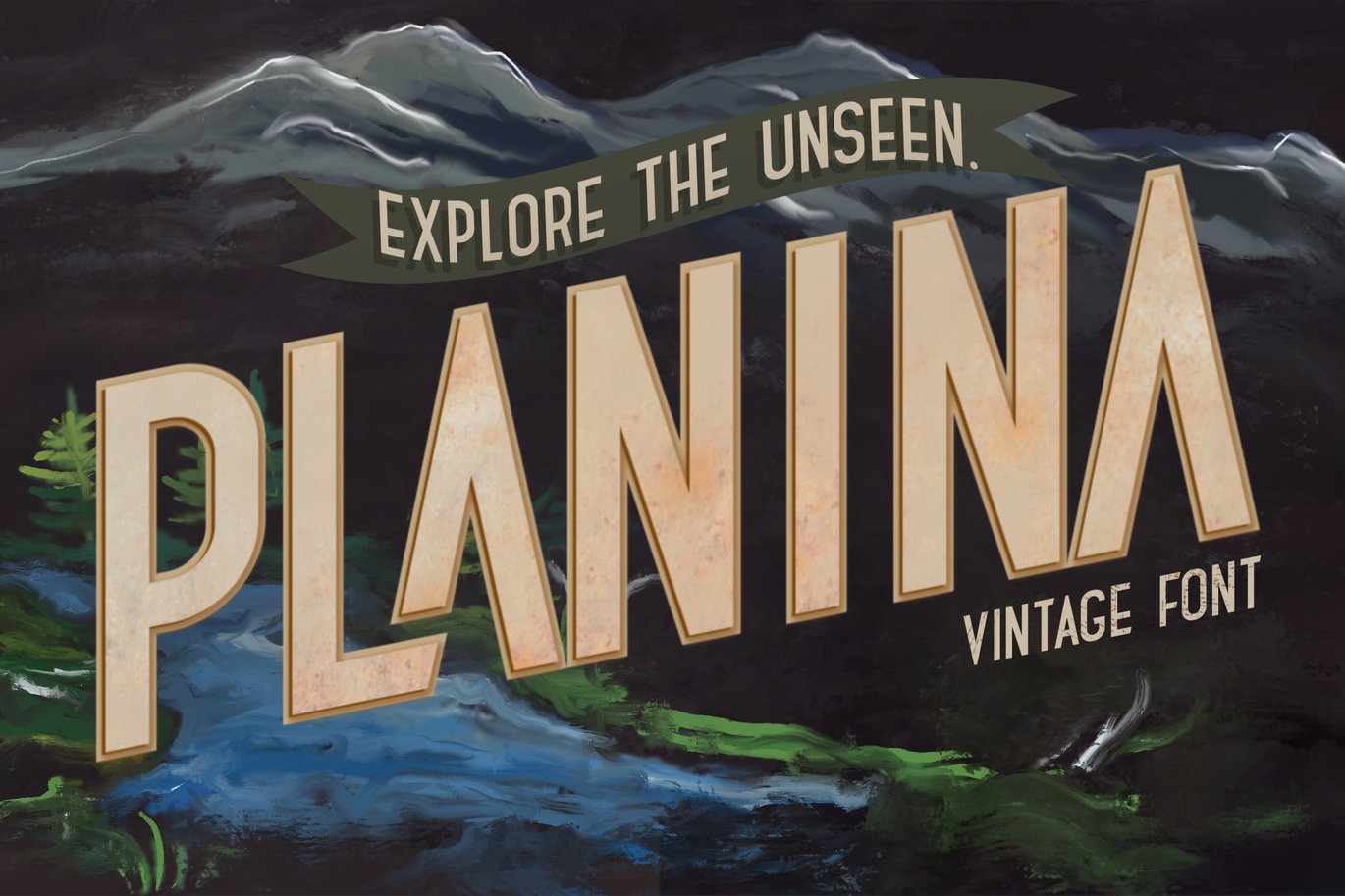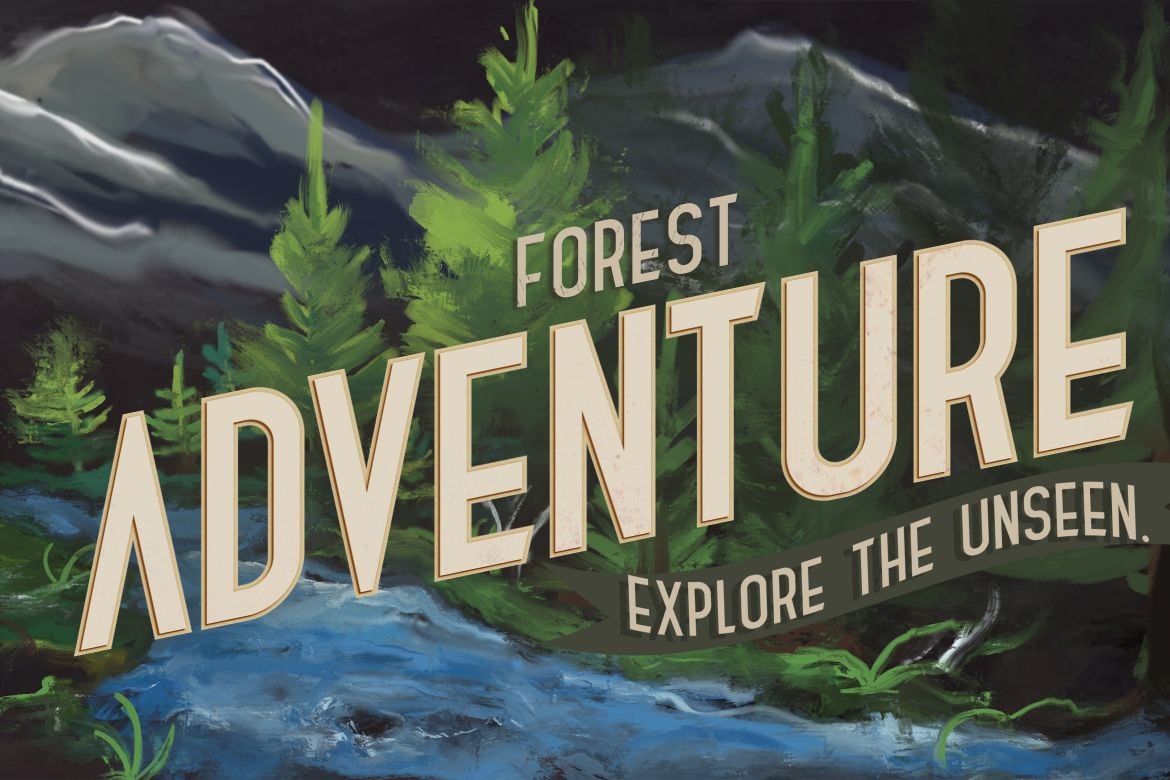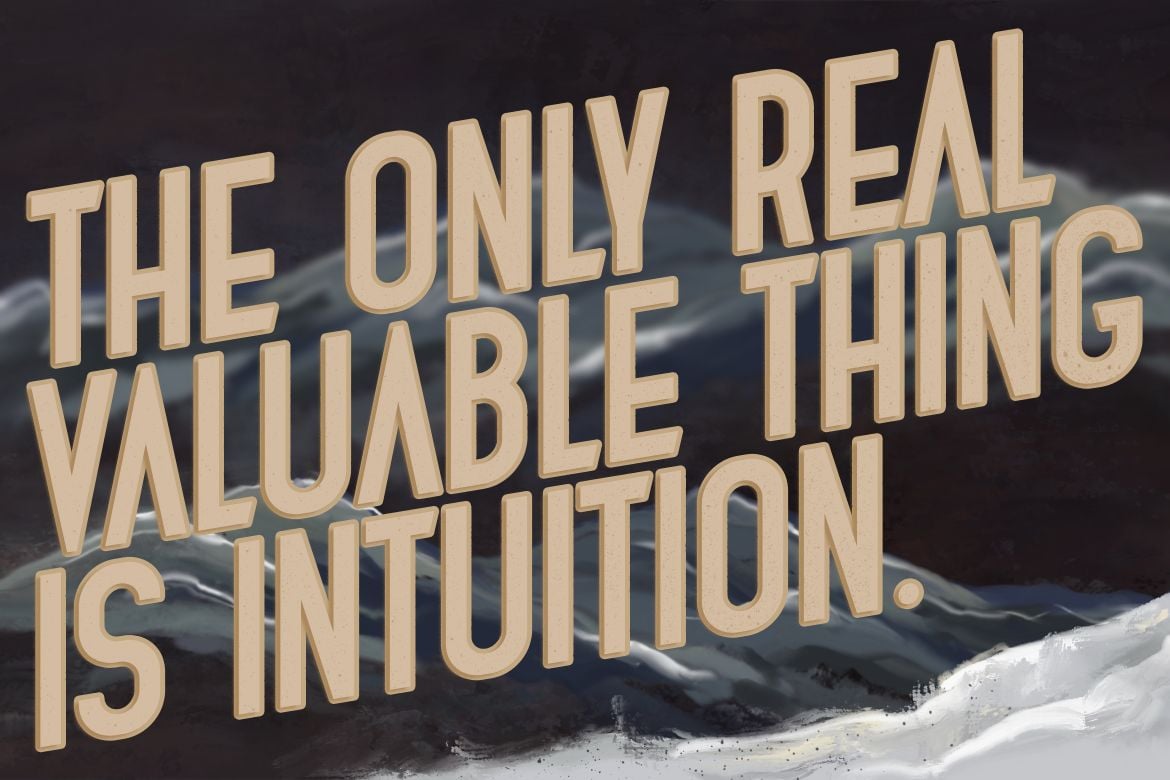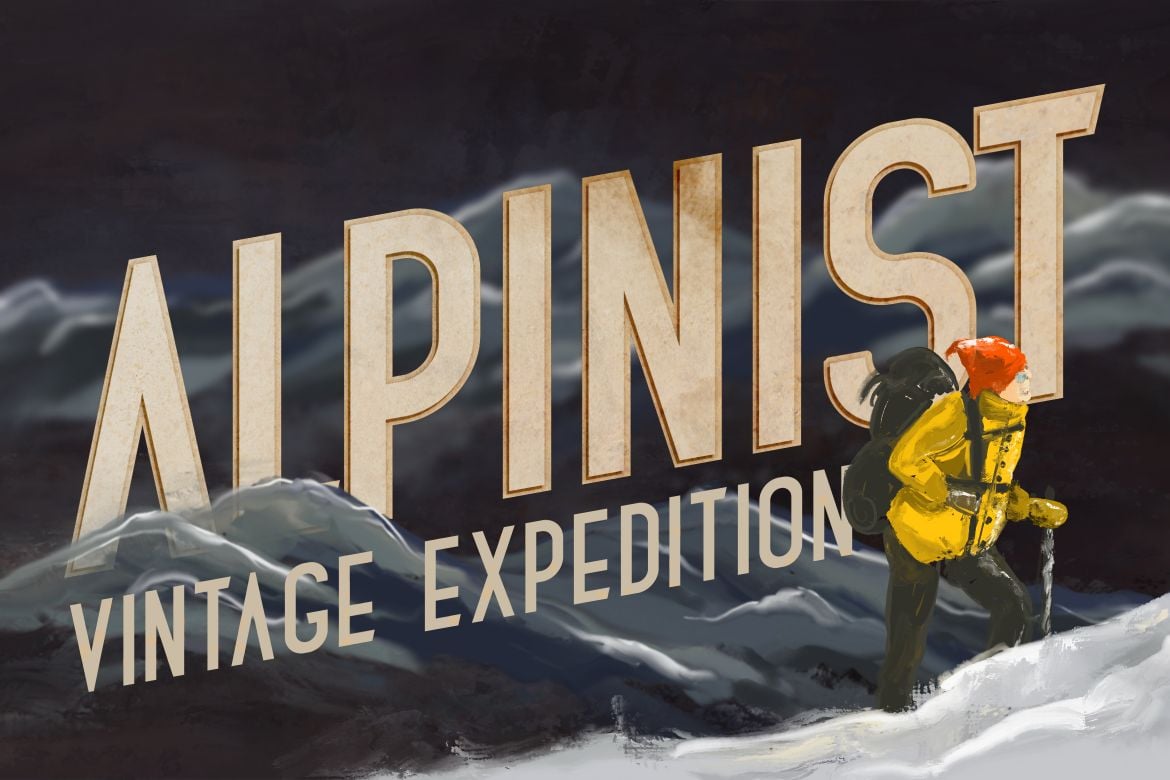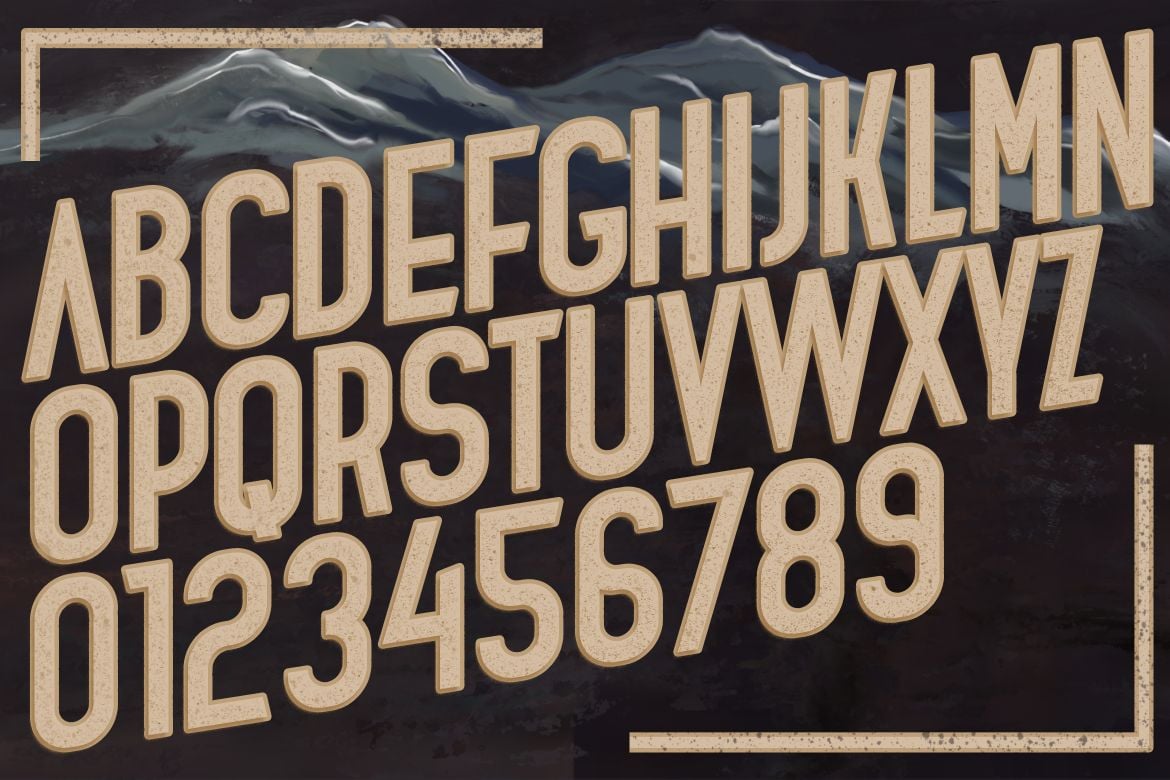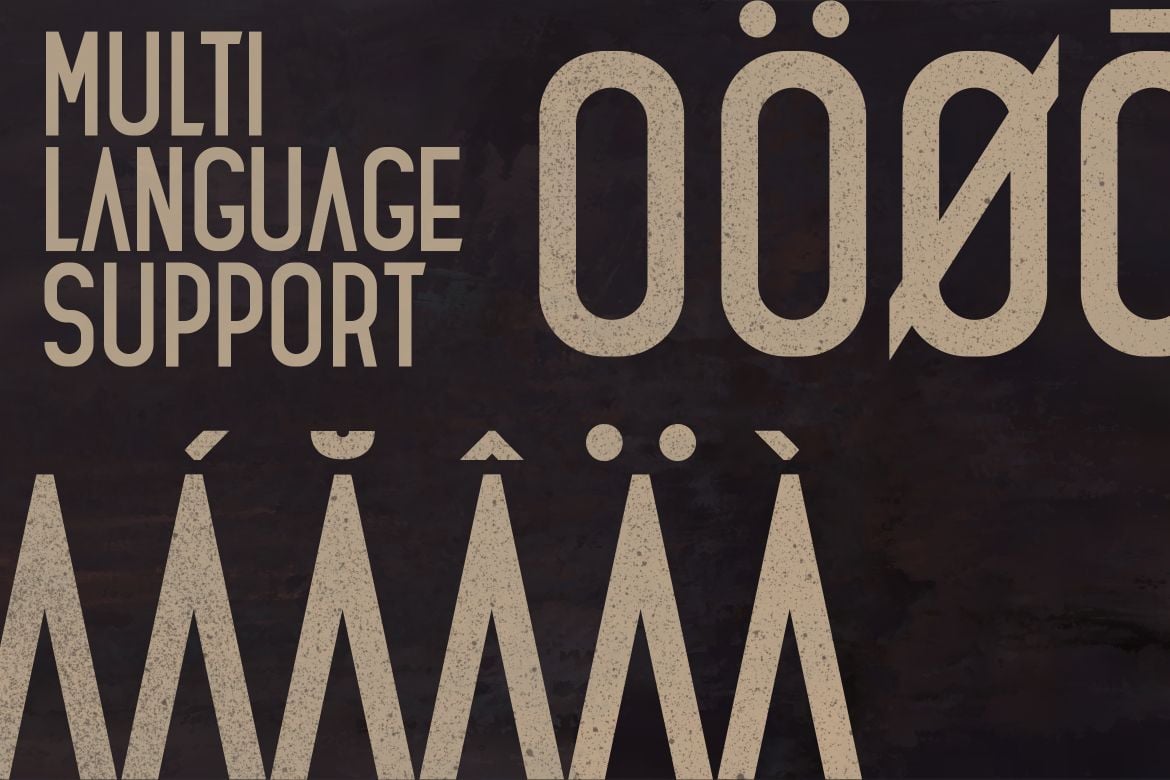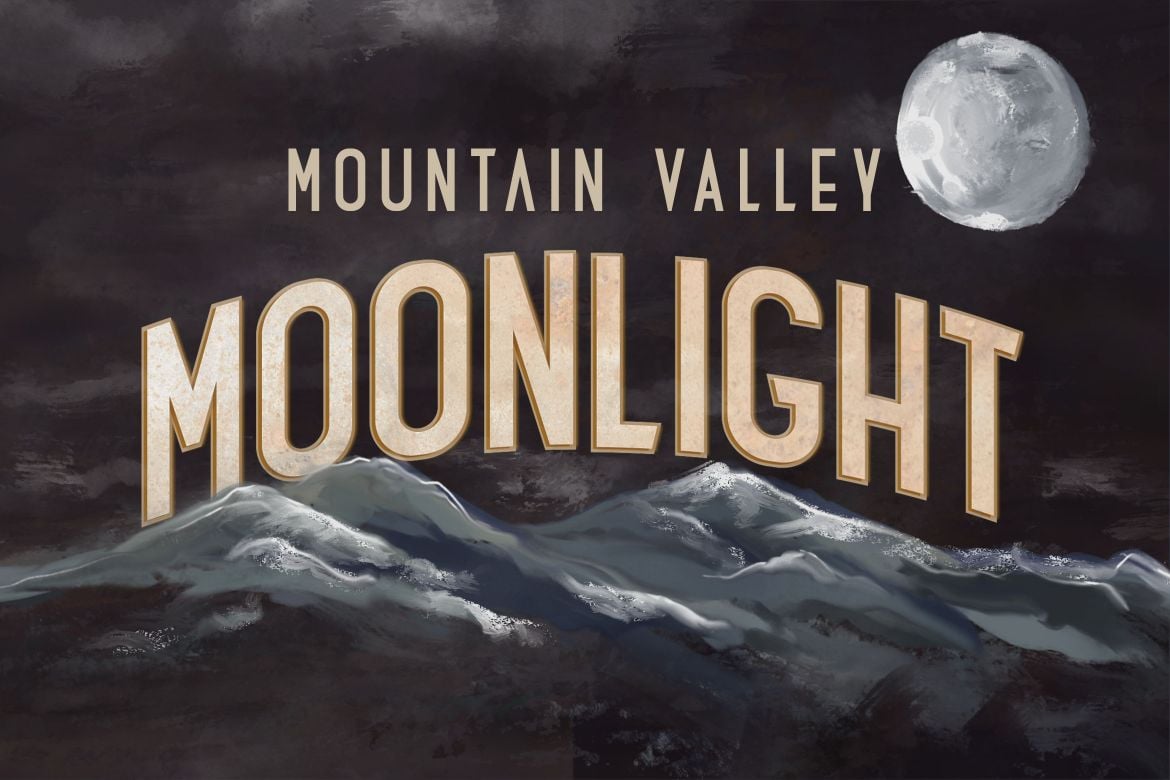
Planina Font
With** Planina Font** you can make it easier to convey the message in your design. Use for awesome display, labeling, clothing, movie sceen, poster, movie title, gigs, album covers, logos, and much more.
It comes in 4 styles: Regular, Italic, Outline and Stamp.
Inspired by tradition, hardworking people and 1900s it is ideal for retro and vintage projects, from clear designs to rough look designs.
The Planina features:
Stylistic alternatives
Ligatures
International characters (Multilingual)
Punctuation & symbols
OpenType Features
**  Multilanguage Support: **English, Albanian, Danish, Dutch, Estonian, Croatian, Bosnian, Slovenian, Finnish, French, German, Icelandic, Italian, Norwegian, Portugese, Spanish, Swedish with a lot of other languages; see Full Character List.